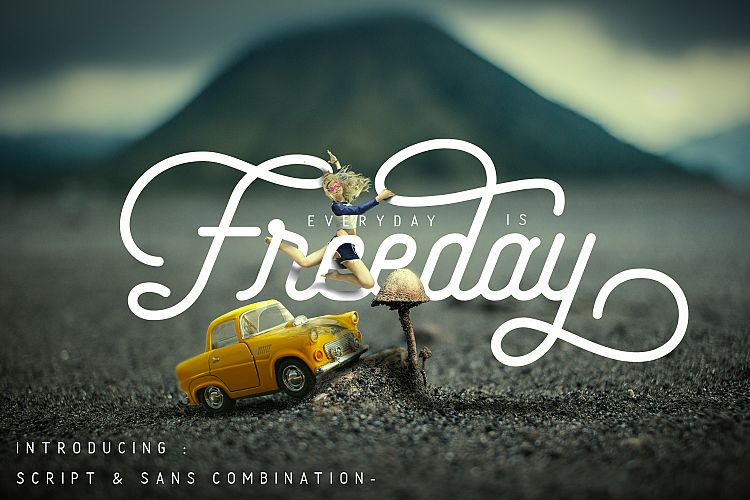
Freeday Font Family
Introducing Freeday Font Family! Freeday Script & Sans designed by Aktab Studio, this is a premium font, are sold on creativemarket, but it was great, it is free today for download. Freeday Font is a modern font with more featured and made with love :). Freeday Font have a complete glyphs, this font suitable for wedding invitation, greeting cards, T-Shirt, Logo or any design that you create. comes with a complete set of standard characters, Alternates, Ligature Variation, Punctuation & have extra textured version for your design and many more.